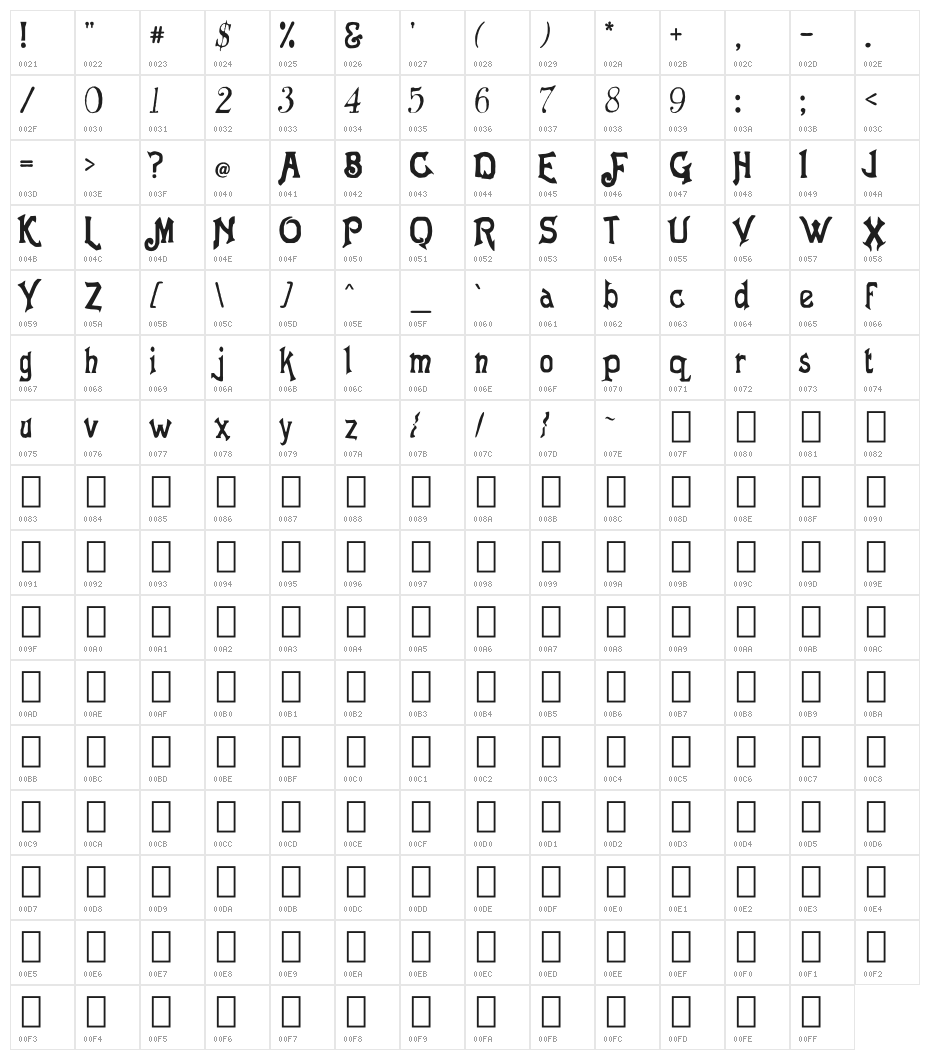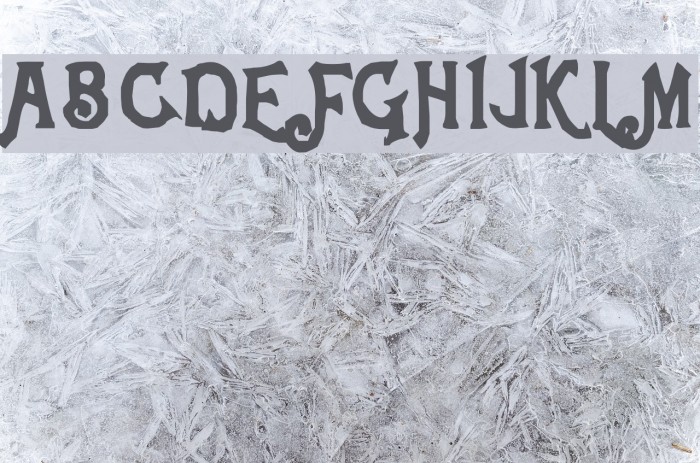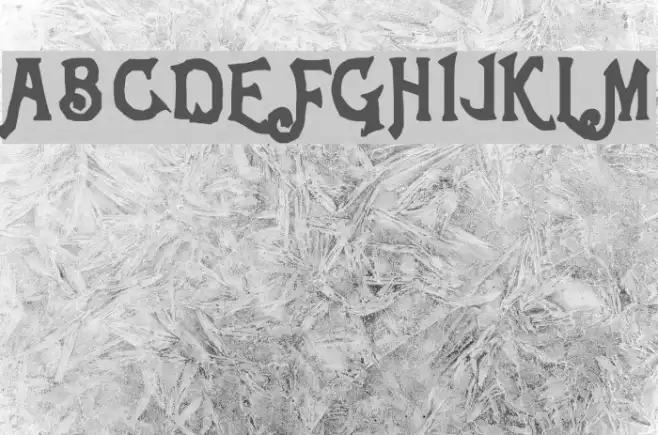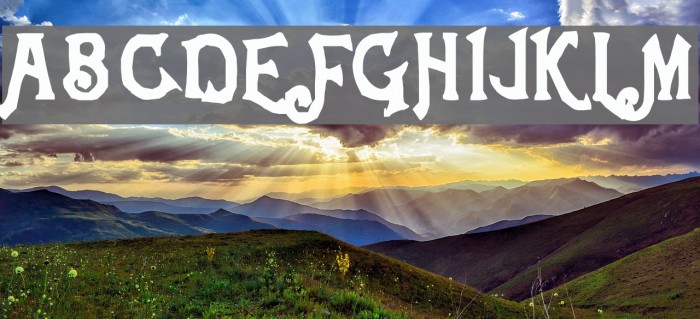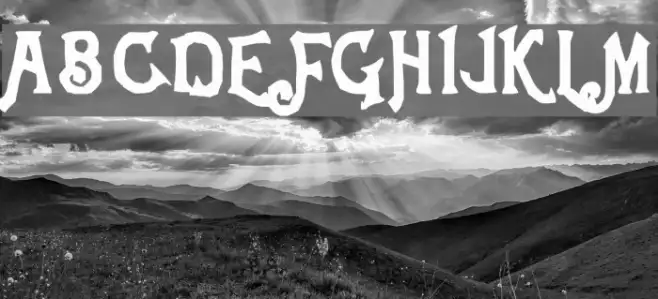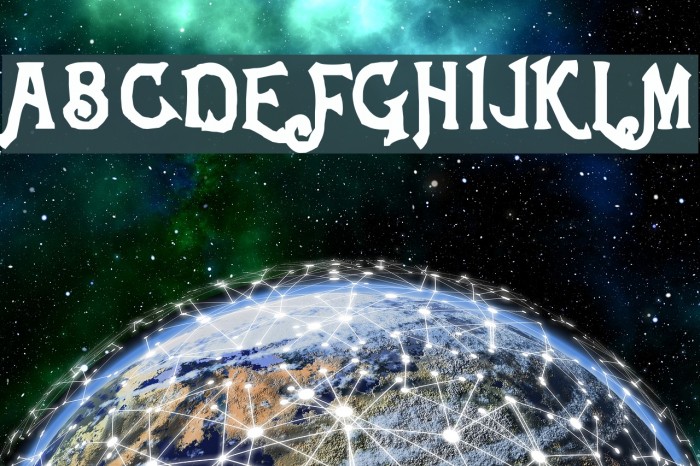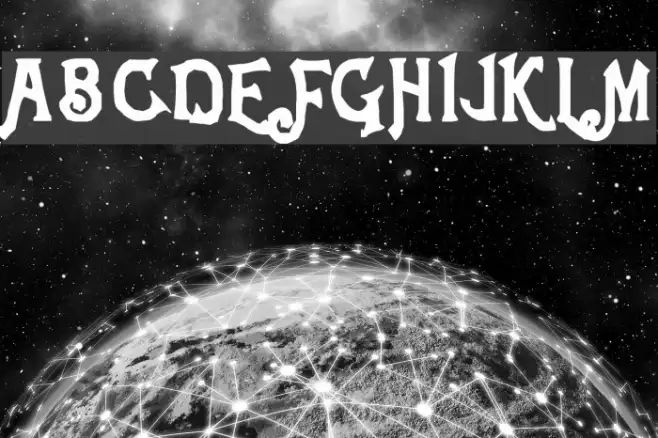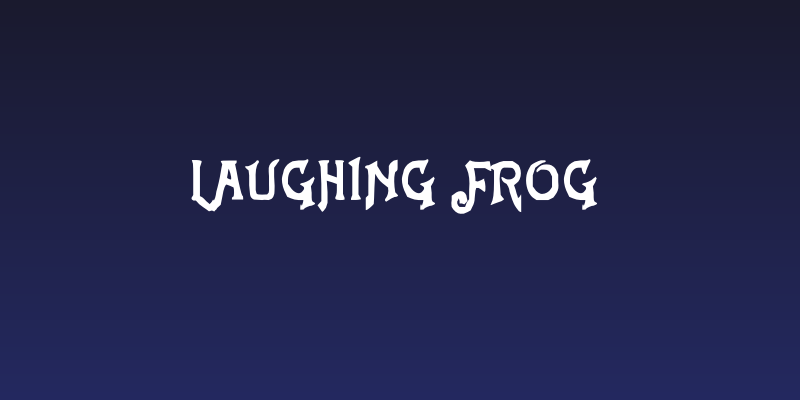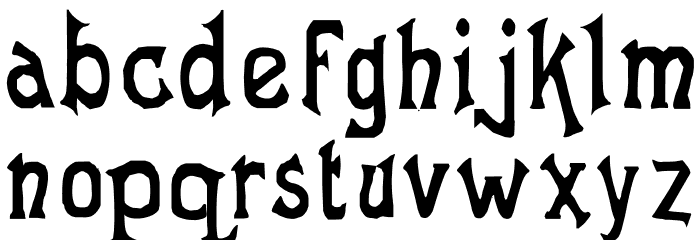
Laughing Frog Font
Laughing Frog Description
This font features a whimsical and playful design with a distinct medieval flair. The characters have a hand-drawn quality, with uneven strokes and exaggerated serifs that give it a lively and dynamic appearance. The uppercase letters are bold and commanding, while the lowercase letters maintain a quirky charm. Numbers and special characters are crafted with the same playful style, making them stand out. The overall look is reminiscent of a fairy tale or fantasy setting, perfect for projects that require a touch of magic and creativity.
| Proposed Projects | Ideal for fantasy-themed projects, children's books, playful branding, and creative invitations. |